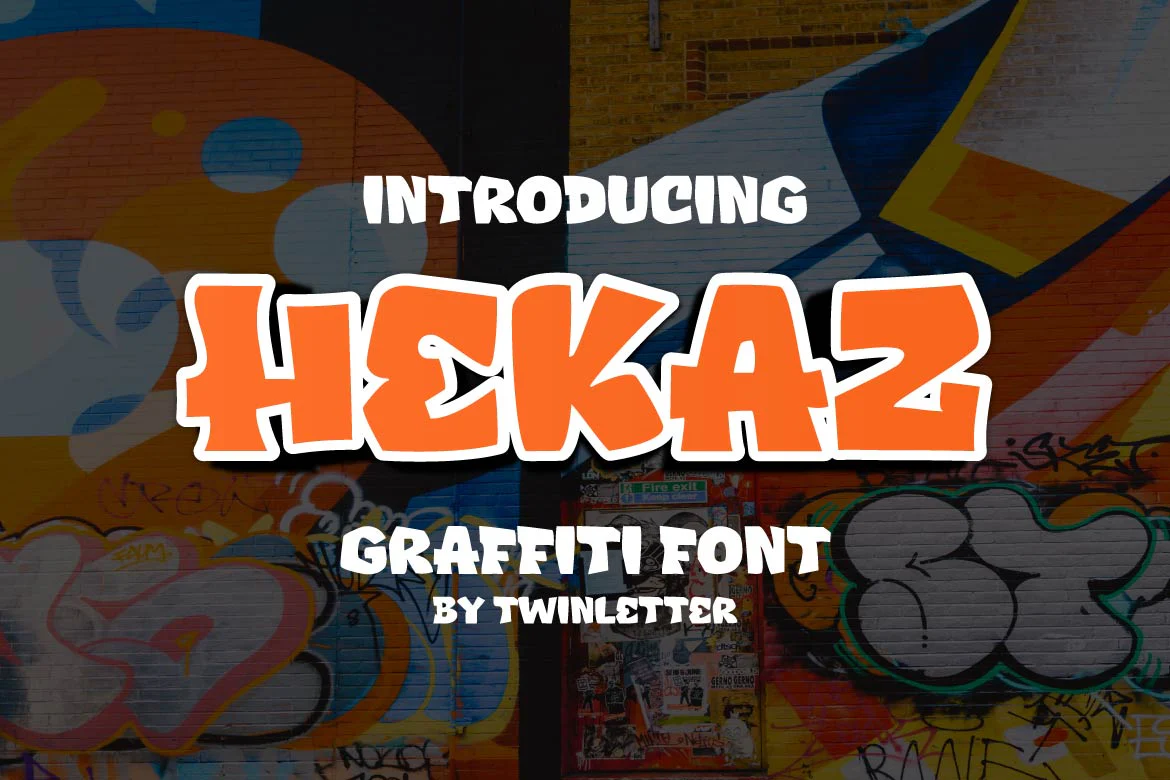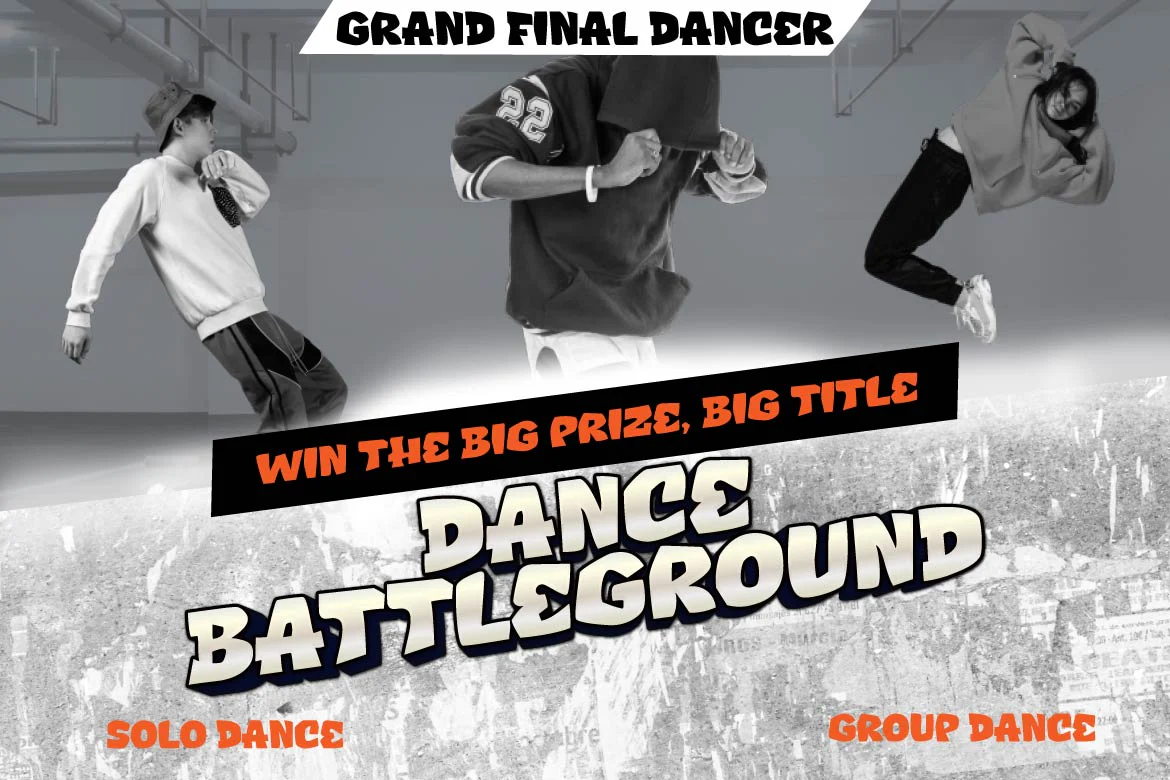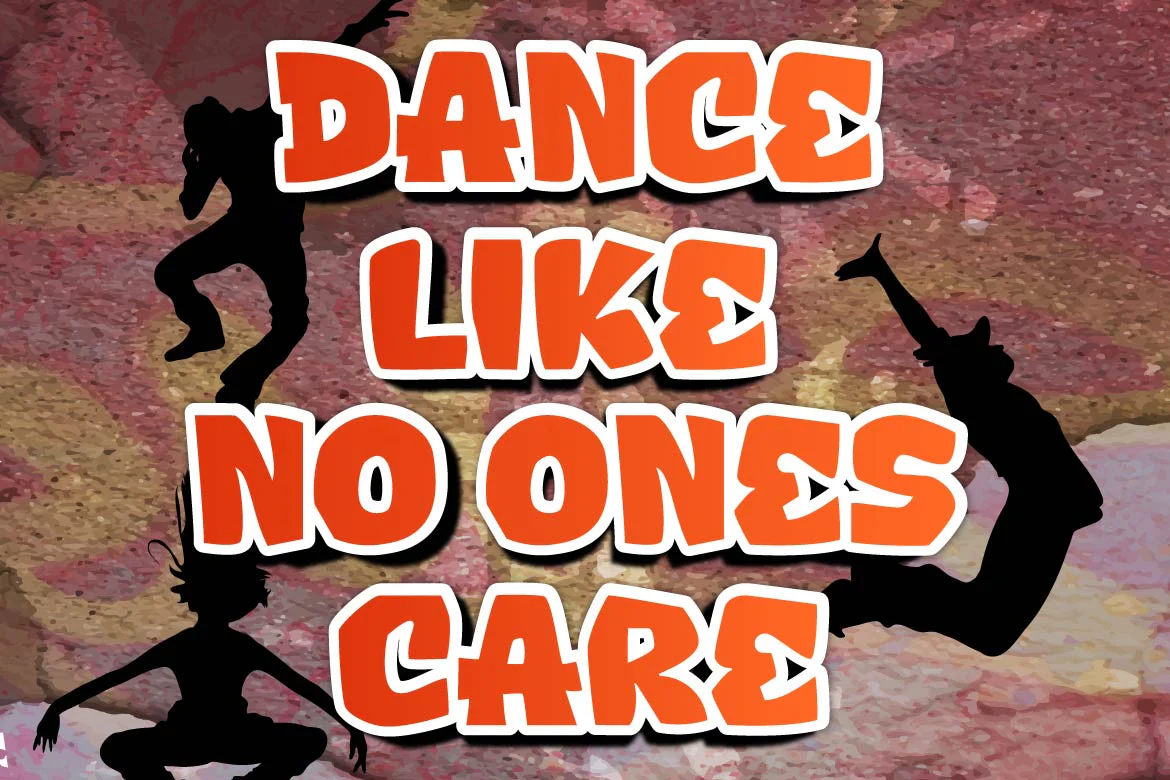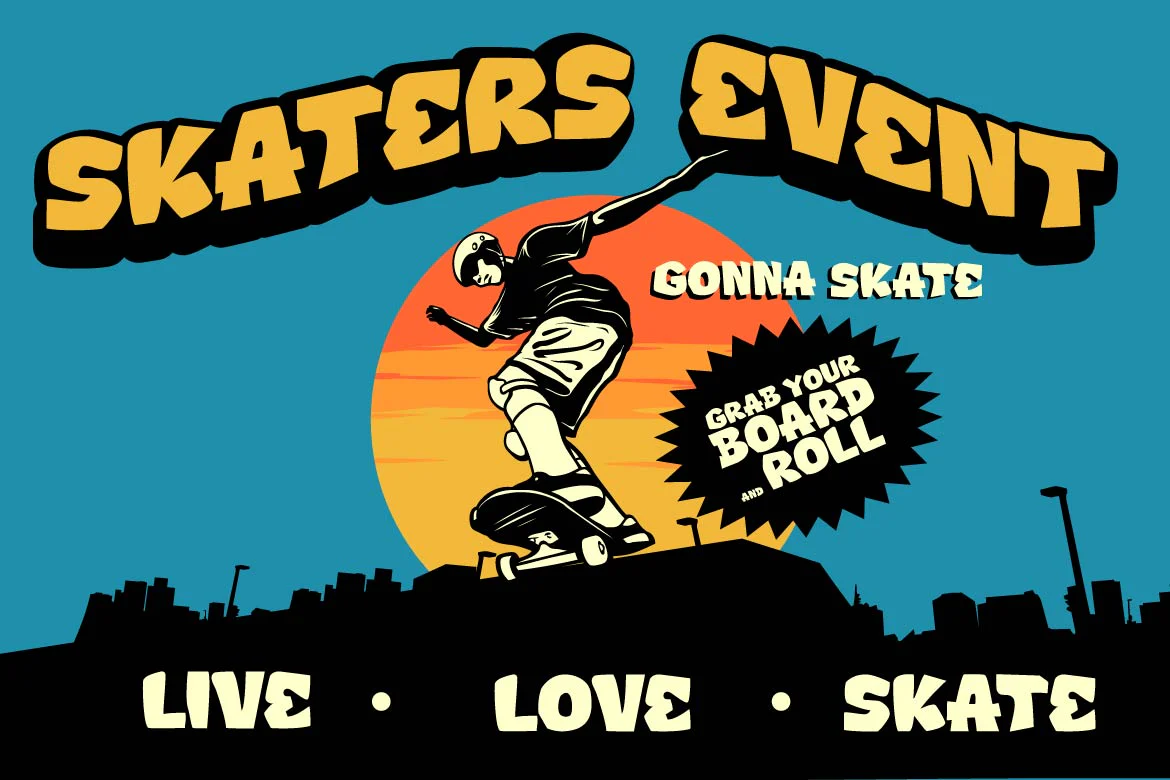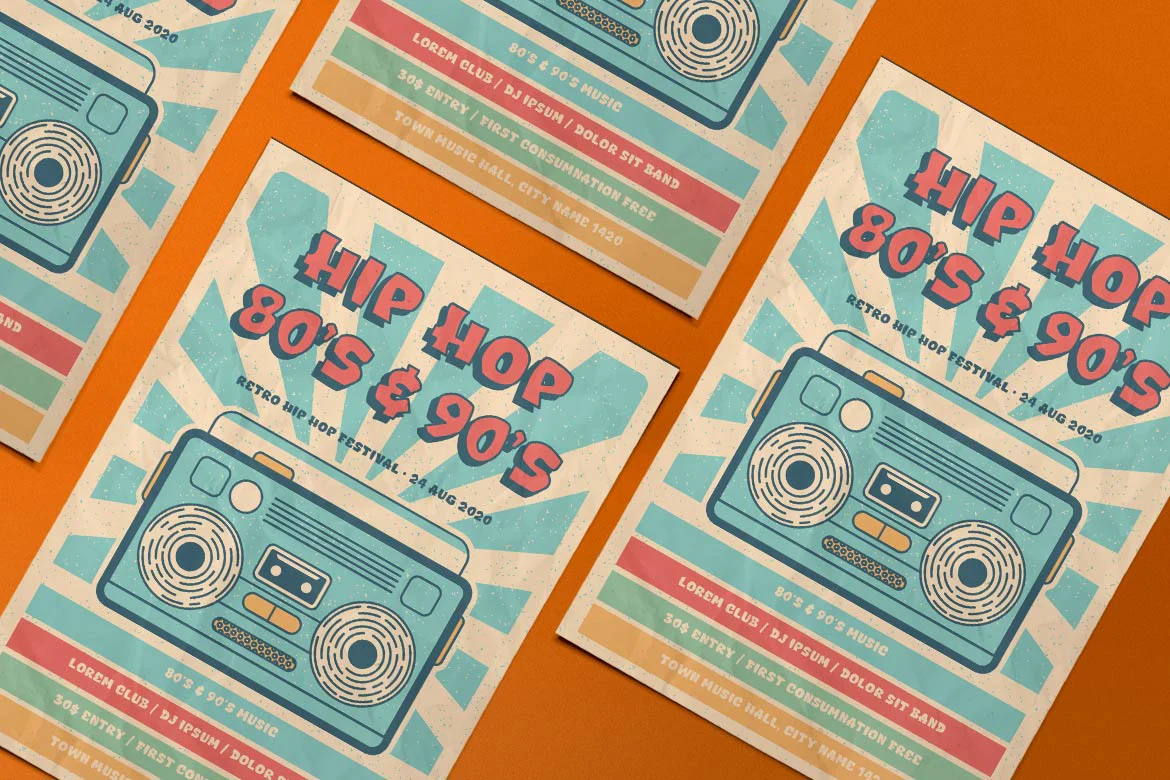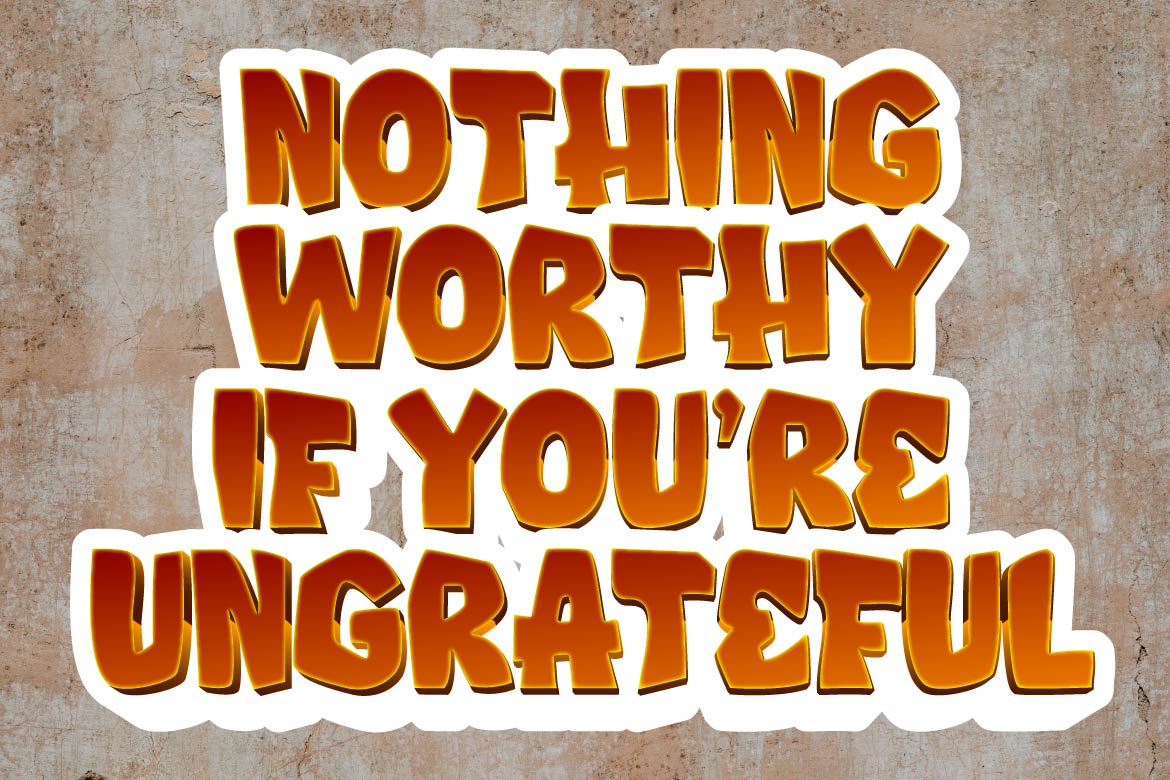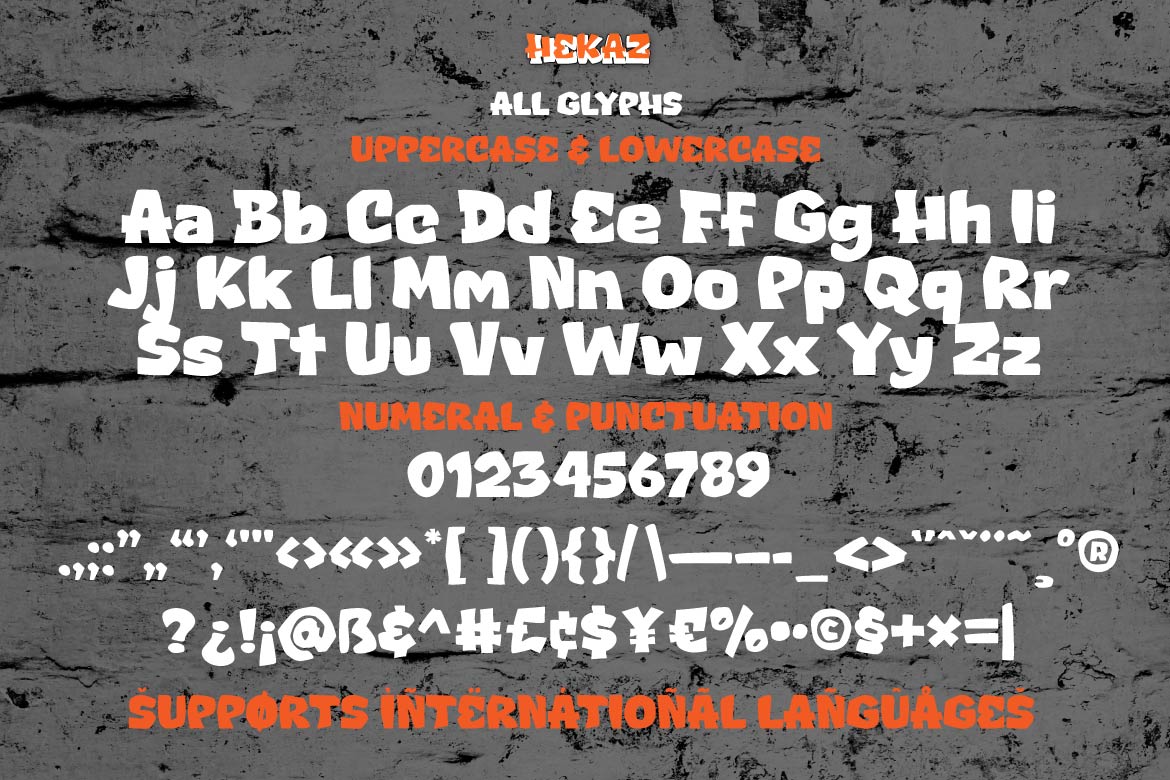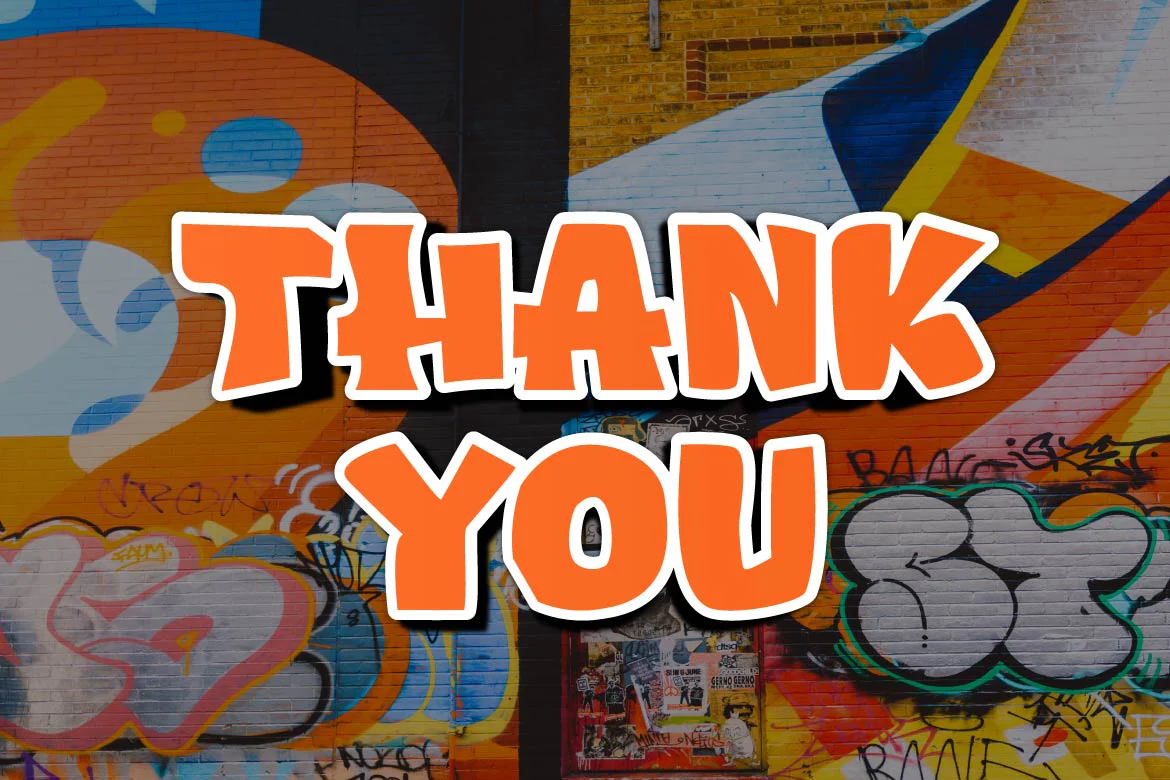
Hekaz - Display Graffiti Style Font
Hekaz is a graffiti font with powerful, unconventional shapes that is nevertheless pleasing to the eye.
This font is the solution if you need an abstract, distinctive, and different from the normal font for remarkable design demands. Use it immediately to make your project elegant and bombastic.
This graffiti font is great for product logos, poster titles, headlines, packaging, film titles, logotypes, gorgeous writing, and trendy graffiti designs, among other things.
Of course, if you utilize this font in your numerous creative projects, they will be perfect and outstanding.
Use this typeface right away for your one-of-a-kind and remarkable projects.